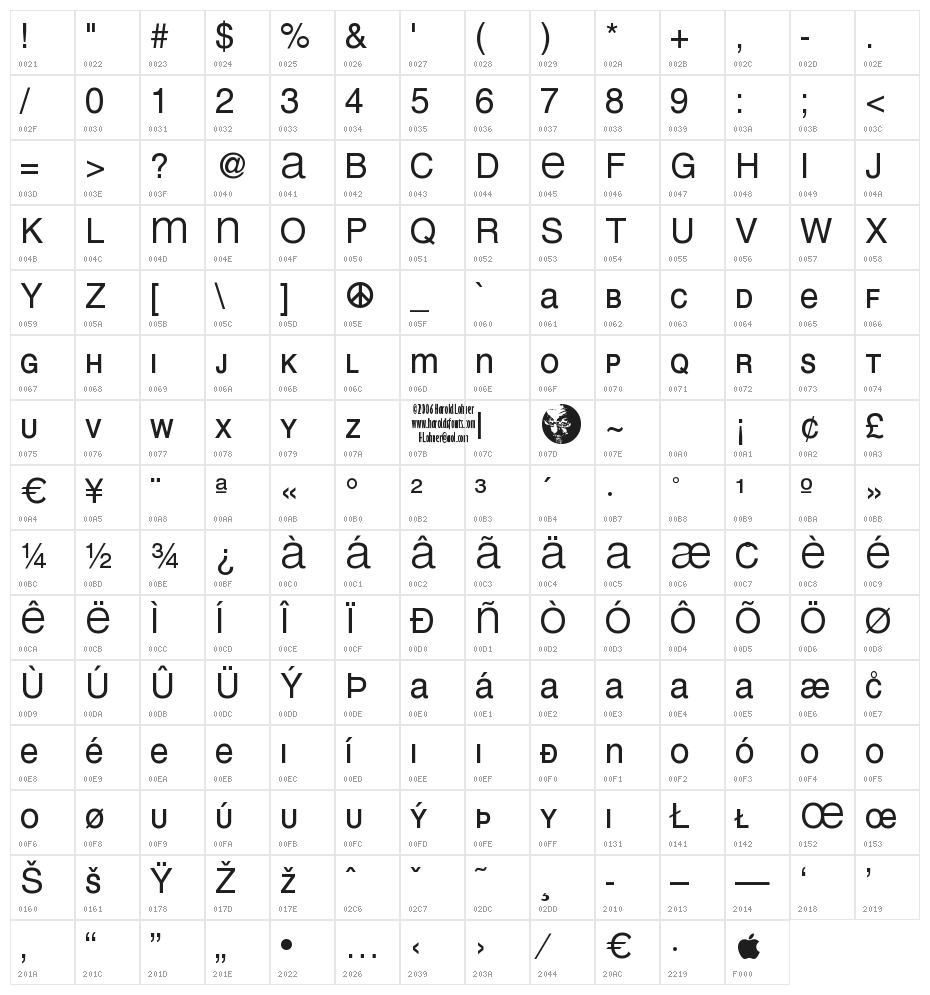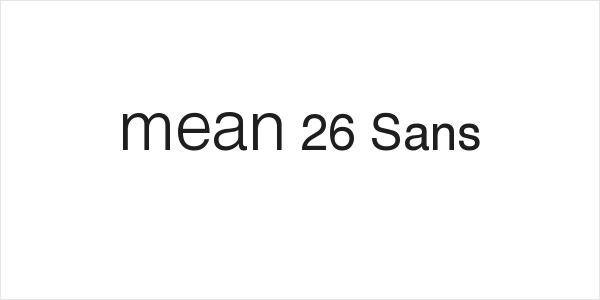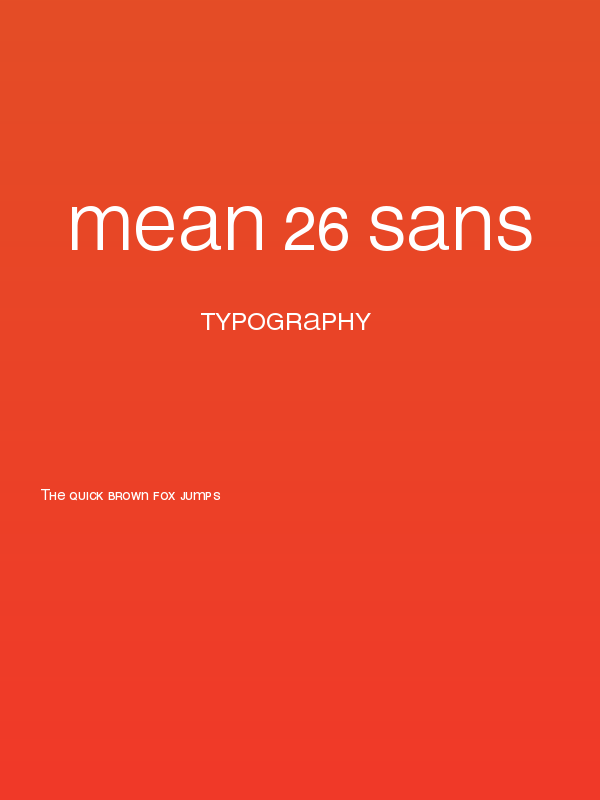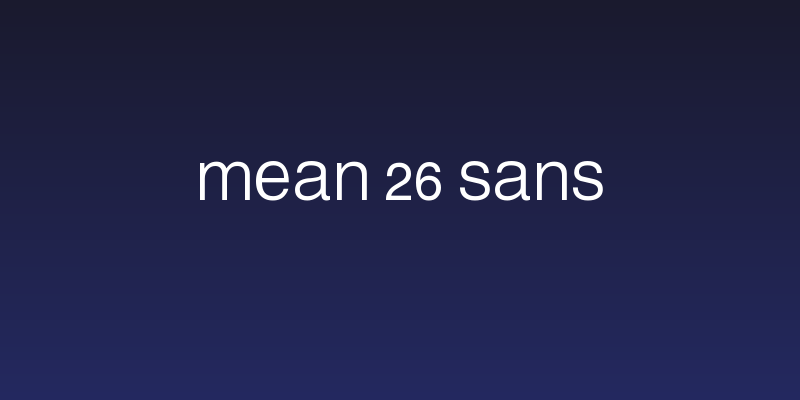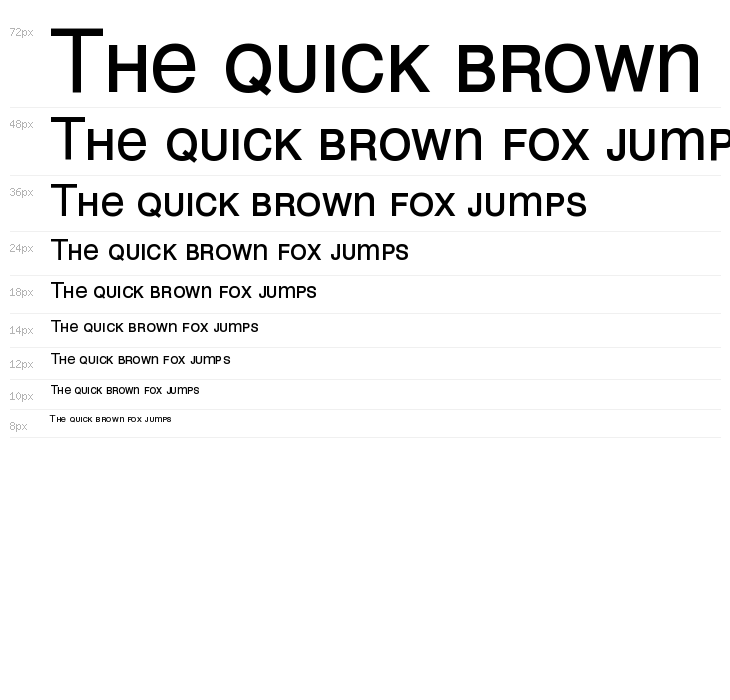
MEAN 26 Sans Font
MEAN 26 Sans Description
This font features a clean and modern sans-serif design, characterized by its uniform stroke width and geometric letterforms. The characters are well-balanced with a consistent height, providing excellent readability. The uppercase letters are bold and assertive, while the lowercase letters maintain a friendly and approachable appearance. The numerals are clear and distinct, making them suitable for data presentation. Special characters are designed with simplicity, ensuring they blend seamlessly with the rest of the typeface. Overall, this font exudes a contemporary and professional vibe, making it versatile for various design applications.